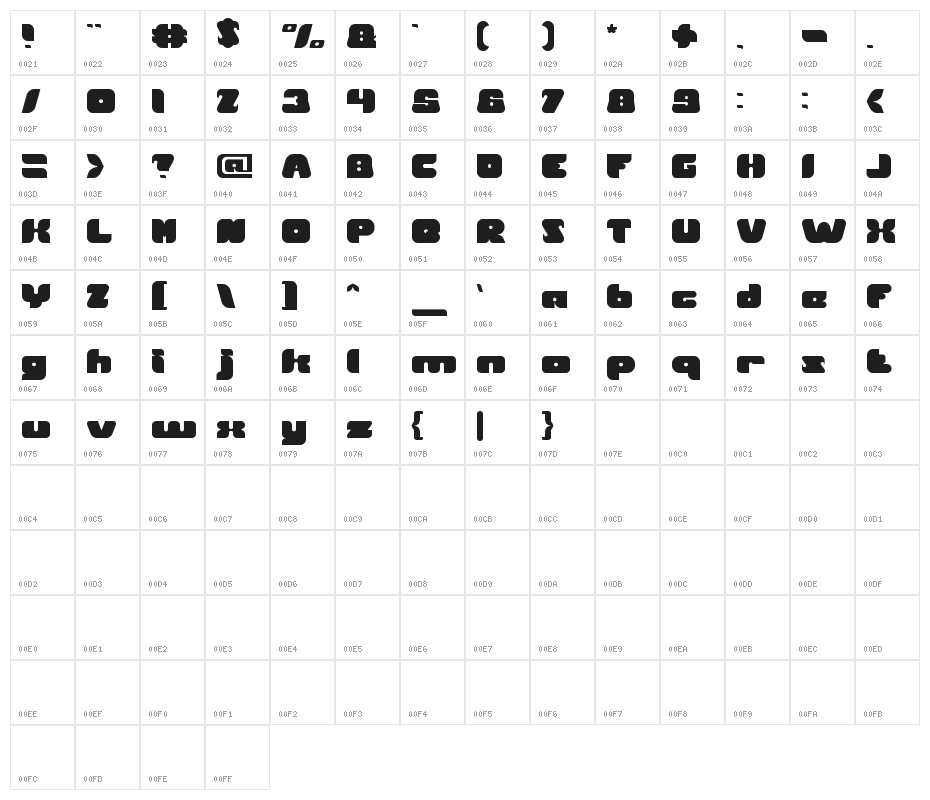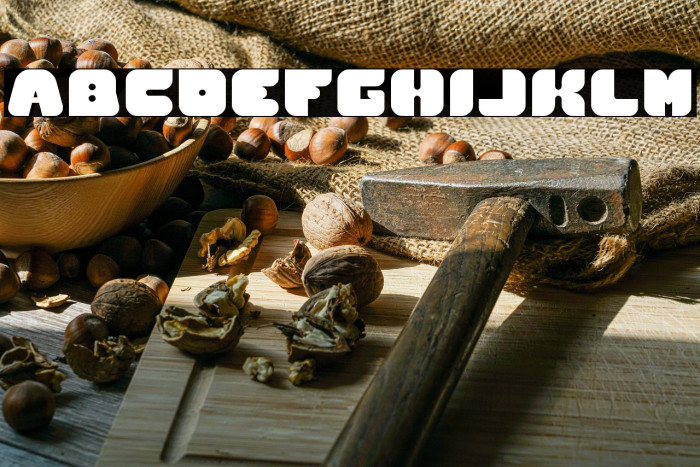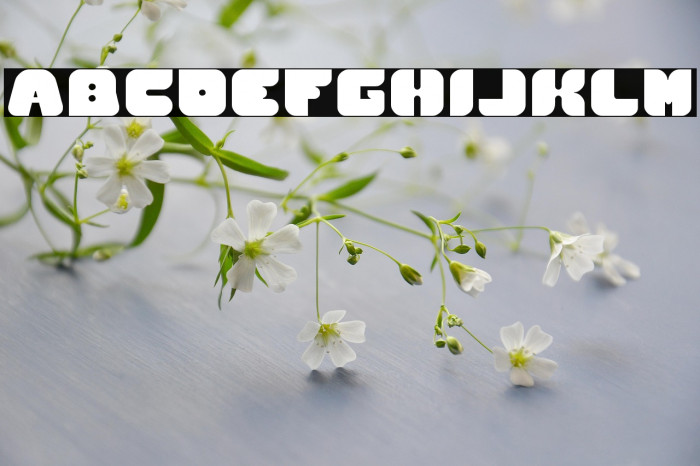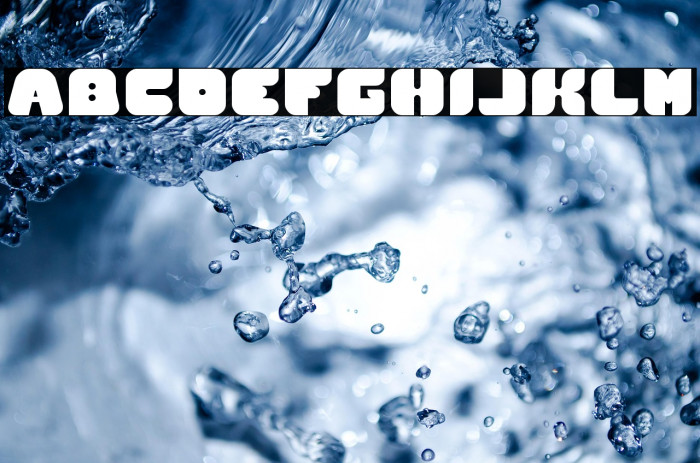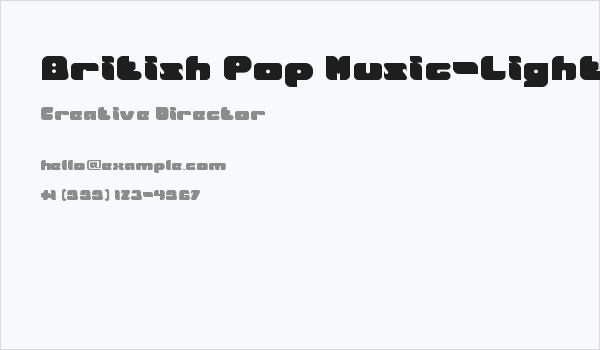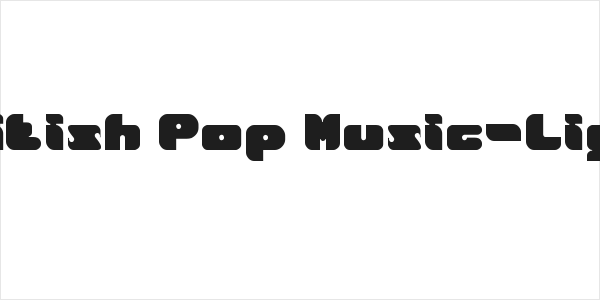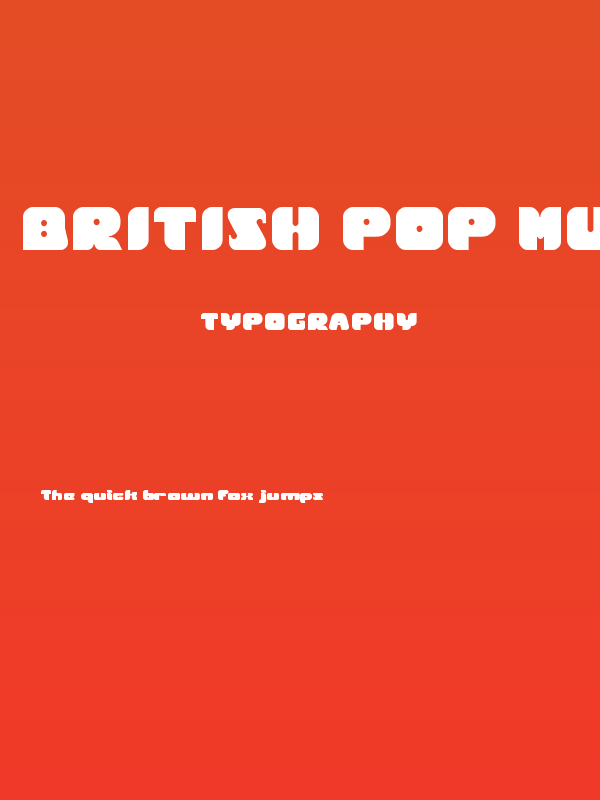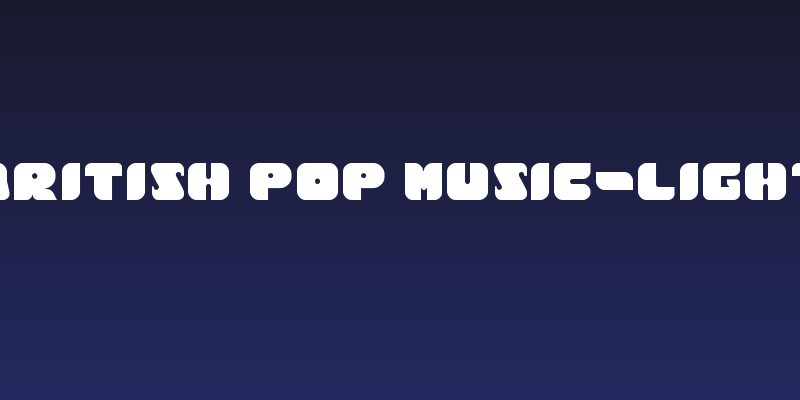
British Pop Music-Light Font
British Pop Music-Light Description
This font features bold, rounded characters with a playful and modern aesthetic. The letters are uniformly thick, giving a strong visual impact. The rounded edges and consistent stroke width create a friendly and approachable feel. The numbers and special characters maintain the same style, ensuring a cohesive look across all text elements. This font is highly legible and stands out due to its unique, chunky design.
| Proposed Projects | Ideal for music album covers, posters, branding for youthful products, or any project needing a bold, fun typeface. |